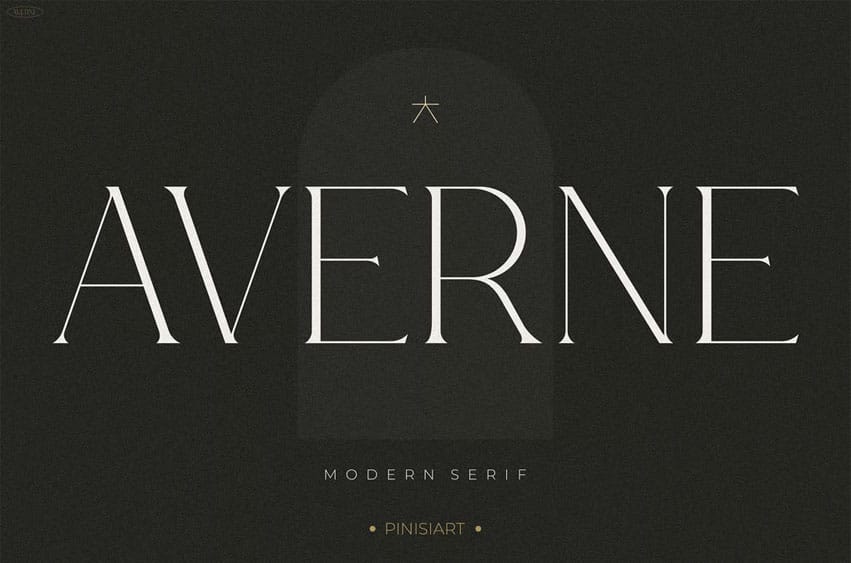
Averne Font Fine-line elegance for branding, fashion labels, packaging, and intentional design systems.
Meet Averne, a sharp and refined modern serif that brings together fine-line detailing with high-fashion clarity. Its elegant proportions, soft flared terminals, and graceful rhythm make it ideal for designers who value intention, restraint, and luxurious minimalism.
Averne blends timeless typographic balance with enough contrast to shine in editorial layouts, modern packaging, or fashion-forward branding. Whether it’s a skincare label, fashion campaign, or art-directed interior design spread, Averne elevates every word with quiet authority.
Perfect for beauty brands, boutique agencies, wedding suites, or lifestyle labels, Averne speaks in confident whispers. It’s the font of choice when every detail matters—from perfume box typography to gallery posters, business cards to bridal monograms.
This is clarity with character. Luxury without loudness. Design made visible through type.
- Fine-Line Sophistication – Elegant contrast, soft serifs, and deliberate proportions create a clean yet luxurious visual tone.
- Versatile Branding Tone – Ideal for skincare, wellness, fashion lookbooks, studio portfolios, and packaging design.
- High-Contrast Display Ready – Designed for large text, hero titles, and brand statements that need to feel premium.
- Quiet Authority – Speaks elegantly across editorial layouts, wedding materials, and thoughtful signage.